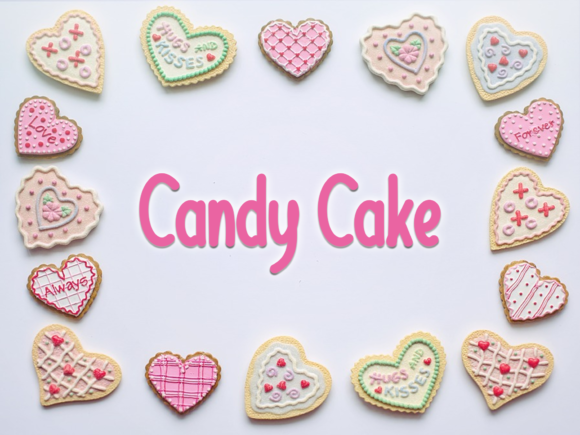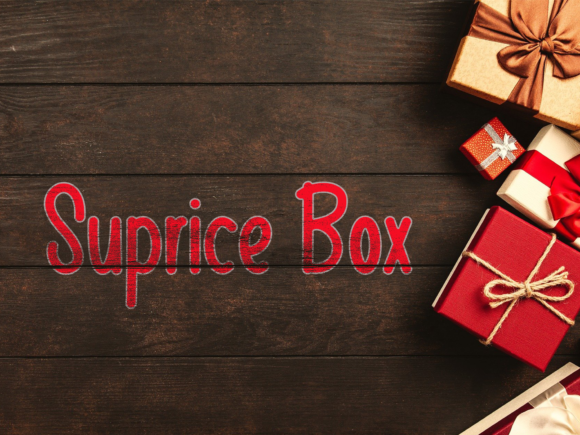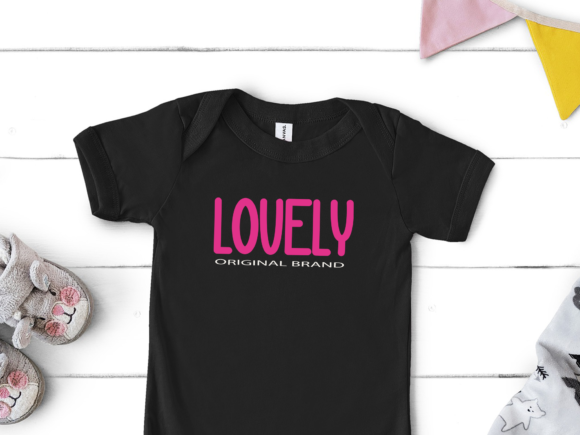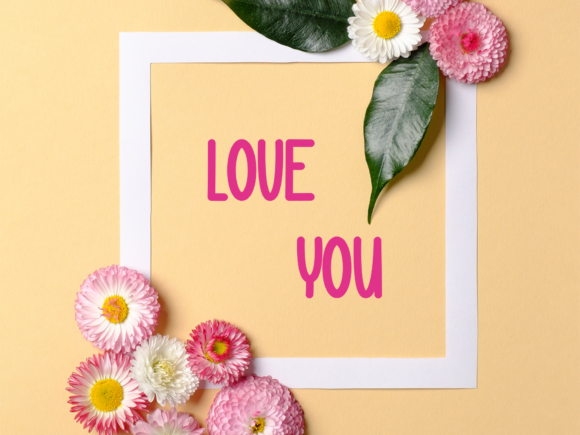
Introducing Farmhouse Font: The Perfect Addition to Your Design Toolkit
Are you a designer or crafter looking for a unique and versatile font to elevate your projects? Look no further than Farmhouse Font, a beautifully crafted display font that is sure to meet your needs. In this article, we’ll take a closer look at Farmhouse Font, its features, and how it can be used to enhance a variety of products.
Farmhouse Font is a display font that has been created with meticulous attention to detail to produce a font that is both stylish and functional. This font is perfect for designers and crafters who want to add a touch of rustic charm to their projects. With its clean lines, elegant curves, and classic feel, Farmhouse Font is sure to become a staple in your design toolkit.
So, what makes Farmhouse Font so special? Here are just a few of its key features:
- Unique and stylish design: Farmhouse Font has a distinctive look that sets it apart from other fonts. Its combination of bold and delicate lines creates a visually appealing effect that is sure to capture attention.
- Highly versatile: Farmhouse Font can be used for a wide range of projects, from signage and branding to packaging and digital media.
- Easily readable: Despite its stylish design, Farmhouse Font is highly legible, making it perfect for use in both large and small sizes.
How to Use Farmhouse Font
Farmhouse Font is a versatile font that can be used for a wide range of projects. Here are just a few ideas to get you started:
- Branding and signage: Use Farmhouse Font to create eye-catching signs, logos, and branding materials that reflect your business’s rustic charm.
- Packaging and labeling: Add a touch of elegance to your product packaging with Farmhouse Font, perfect for food labels, wine labels, and more.
- Digital media: Use Farmhouse Font to create engaging social media graphics, blog headers, and website elements that showcase your brand’s personality.
- Crafting and DIY projects: Farmhouse Font is perfect for crafters who want to add a personal touch to their projects, such as handmade cards, invitations, and scrapbooking.
Tips for Getting the Most Out of Farmhouse Font
To get the most out of Farmhouse Font, here are a few tips to keep in mind:
- Experiment with different sizes and colors: Farmhouse Font looks great in a range of sizes and colors, so don’t be afraid to experiment to find the perfect combination for your project.
- Pair with other fonts: Farmhouse Font pairs well with a range of other fonts, so try combining it with other fonts to create a unique and interesting effect.
- Use it consistently: To create a cohesive look, use Farmhouse Font consistently across all of your branding and marketing materials.
Farmhouse Font is a beautiful and versatile display font that is perfect for designers and crafters who want to add a touch of rustic charm to their projects. With its unique design, high legibility, and compatibility with a range of software, Farmhouse Font is sure to become a staple in your design toolkit. Whether you’re creating branding materials, packaging, digital media, or crafting and DIY projects, Farmhouse Font is the perfect choice.